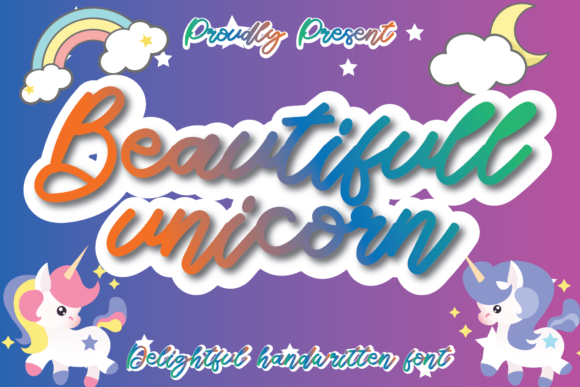
Unleash Your Creativity with the Enchanting Beautifull Unicorn Font
Have you ever sat in front of your computer, staring at a blank page, and suddenly felt an overwhelming urge to create something magical? That’s exactly what happened to me the first time I laid eyes on the Beautifull Unicorn Font. Its elegant touch and flowing handwritten style transported me to a world of wonder, where anything is possible.
Beautifull Unicorn Font is a beautiful, one-of-a-kind font that’s perfect for designers who want to add a touch of whimsy and sophistication to their projects. Whether you’re working on a wedding invitation, a children’s book, or a social media campaign, this font is sure to captivate your audience and leave them spellbound. Its timeless style makes it a valuable addition to any designer’s toolkit, and its versatility means you can use it in a wide range of creative projects.
Key Features of Beautifull Unicorn Font
- Font Family: Beautifull Unicorn Font offers a unique and whimsical font family with multiple styles and weights, including Regular, Bold, Italic, and Bold Italic.
- Unique Characteristics: Features a hand-drawn, dreamy aesthetic with flowing lines, ornate details, and a touch of magic, making it perfect for fantasy, fairy tale, and whimsical designs.
Beautifull Unicorn Font Review
I recently had the chance to play around with the “Beautifull Unicorn Font” and I must say, it’s a unique addition to any design project. ✨ The font’s whimsical nature makes it perfect for creating magical and dreamy atmospheres. It’s also quite versatile and can be used in a variety of contexts, from children’s books to fantasy-themed websites.
One of the standout features of this font is its playful, hand-drawn feel. ✨ The irregularities and imperfections give it a charming, organic quality that’s hard to replicate with more traditional fonts. Additionally, the font’s wide range of styles and weights makes it easy to customize and adapt to different design needs.
- ⚠️ The font’s complexity may make it challenging to use for certain applications, such as body text or headlines where readability is a top priority.
- ⚠️ Some users may find the font’s whimsical nature too distracting or overwhelming, especially in designs where a more subtle approach is desired.
Overall, I think the “Beautifull Unicorn Font” is a great choice for designers looking to add a touch of magic to their projects. While it may not be suitable for every design task, its unique charm and versatility make it a valuable addition to any design toolkit.
Some tips for getting the most out of “Beautifull Unicorn Font” include using it for decorative headings, titles, and quotes. It’s also a great font for creating whimsical and magical designs. You can use it in a variety of contexts, such as invitations, posters, and social media graphics.